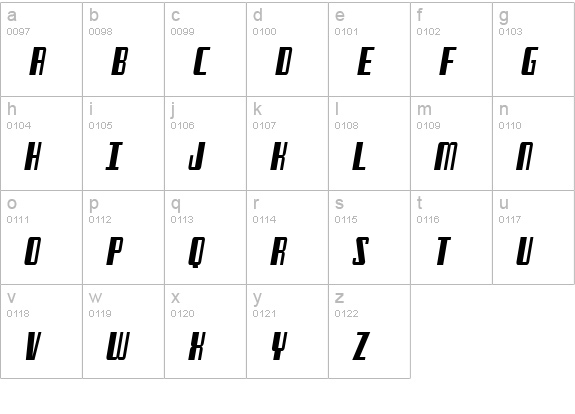
Freezer BTN Condensed Oblique is a distinctive, condensed-width, italic variant in the Freezer typeface family \xE2\x80\x94 well suited to design and typography projects.
Freezer BTN Condensed Oblique font is a sleek and modern typeface that exudes a sense of sophistication and style. With its condensed design and subtle slant, this font is perfect for adding a touch of elegance to any project. The clean lines and sharp angles of Freezer BTN Condensed Oblique make it a versatile choice for a wide range of design applications, from branding to advertising to editorial design. This font is not only stylish and contemporary, but it is also incredibly versatile and easy to read. Its condensed form allows for efficient use of space while maintaining legibility, making it ideal for headlines, subheadings, and other display purposes. The oblique style adds a dynamic and modern touch to the font, creating a sense of movement and energy. Best of all, Freezer BTN Condensed Oblique font is available for free download at FontsMarket.com. Whether you're a designer working on a commercial project or a hobbyist looking to spruce up your personal creations, this font is a fantastic option that won't cost you a thing. Download Freezer BTN Condensed Oblique today and bring a touch of sophistication to your designs!